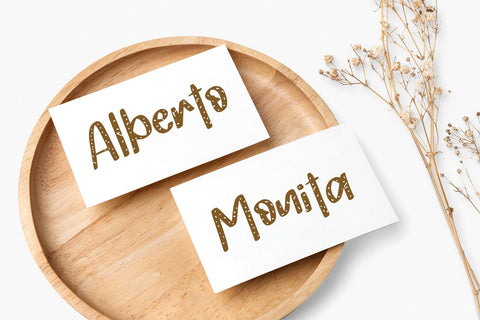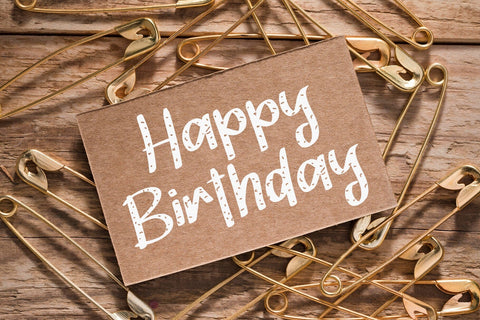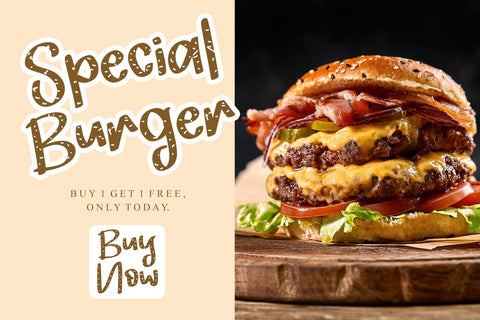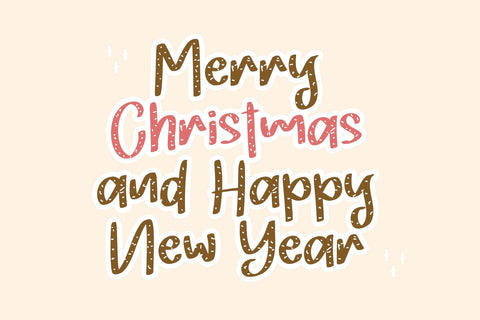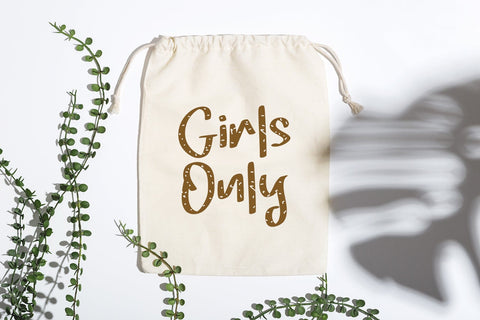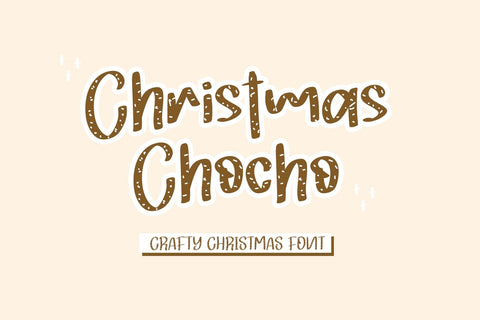
Christmas Chocho
Christmas Chocho is a lovely, cute, and fun display font. This original look will appeal to a wide range of crafty ideas, from letterheads and titles to stationery.